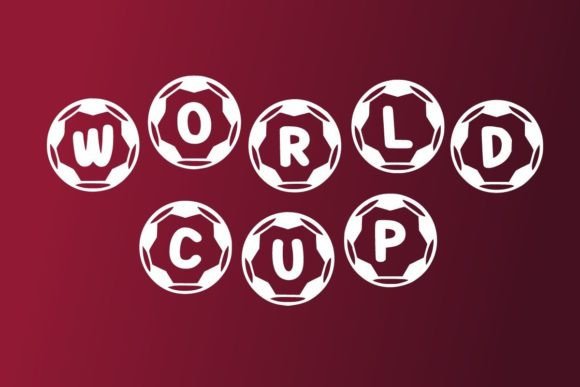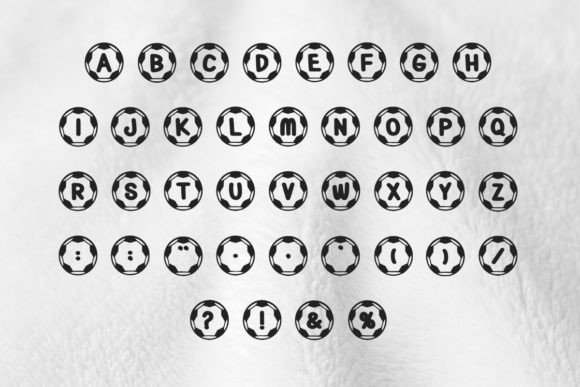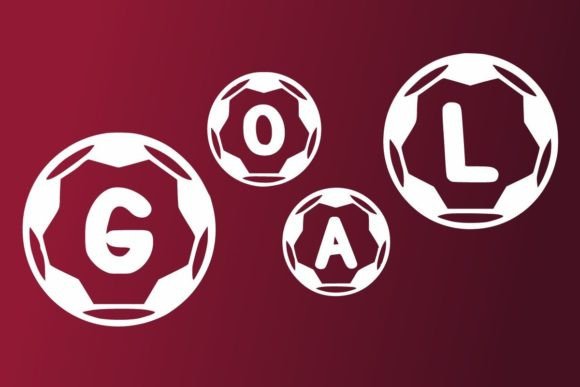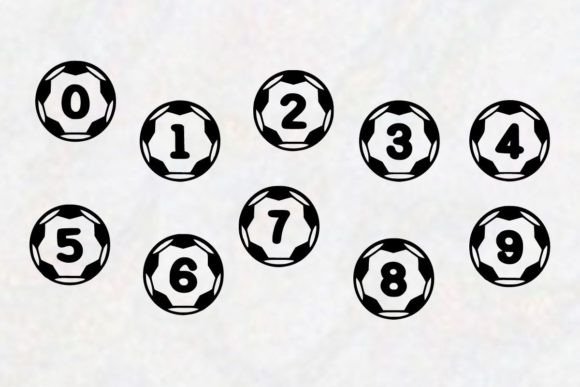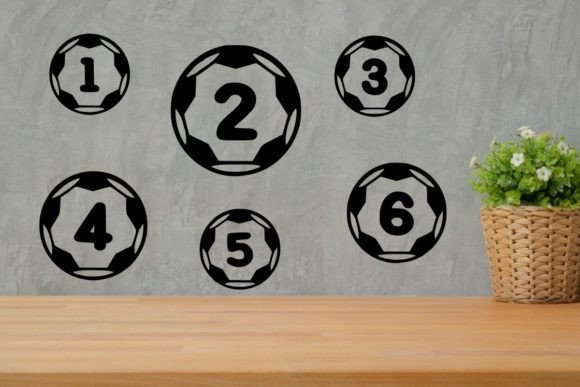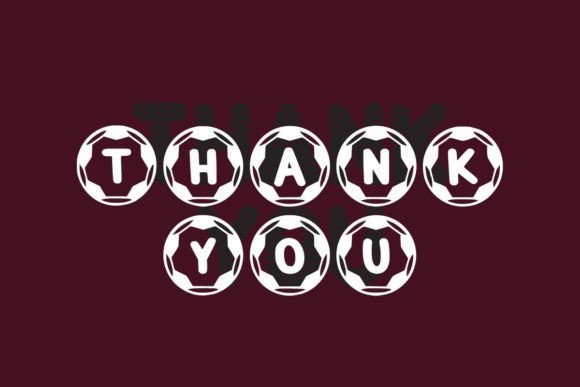
The Crazy Ball Font: A Game-Changer for Sports-Themed Designs
I’ll never forget the time I was working on a sports-themed design project for a local basketball tournament. I had a clear vision of what I wanted to create, but there was one major roadblock: finding the perfect font. The design had to be fun, energetic, and convey the excitement of the game. That’s when I stumbled upon the Crazy Ball font, and let me tell you, it was a home run! 🏀
An Honest Review of Crazy Ball Font
What I Love About Crazy Ball Font
- ✨ It’s incredibly versatile and can be used for a wide range of sports-related designs, from basketball and football to tennis and golf.
- ✅ The font has a unique, playful style that’s sure to grab attention and add a touch of personality to your designs.
- 💥 It’s perfect for creating eye-catching titles, headings, and slogans that will make your designs stand out.
While I absolutely love the Crazy Ball font, there are a few minor quirks to be aware of:
- 🤔 The font can be a bit over-the-top for more formal or professional designs. Use it judiciously and consider your audience.
- ⚠️ Some of the glyphs and special characters can be a bit finicky to work with, especially if you’re new to using OpenType features.
The Backstory Behind Crazy Ball Font
The Crazy Ball font was designed by a team of creatives who wanted to capture the excitement and energy of sports in a fun, playful way. Inspired by vintage sports equipment and classic athletic typography, they crafted a font that’s both nostalgic and modern. The result is a unique, attention-grabbing font that’s perfect for designers, crafters, and creative hobbyists alike.
Q: What type of designs is Crazy Ball font best suited for?
A: Crazy Ball font is perfect for sports-related designs, such as posters, flyers, brochures, and social media graphics.
Q: Is Crazy Ball font available in different weights or styles?
A: Yes, Crazy Ball font comes in a range of weights and styles, including bold, regular, and italic.